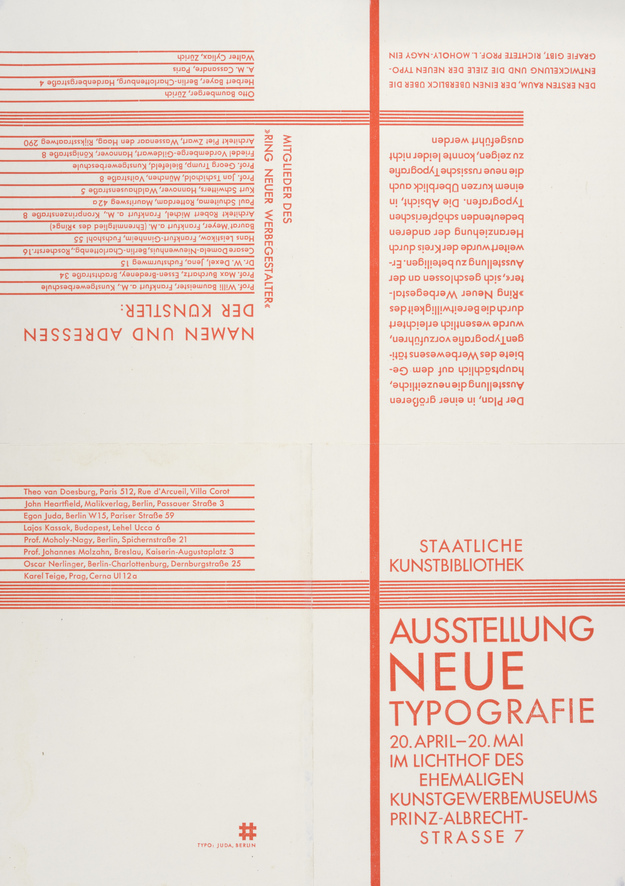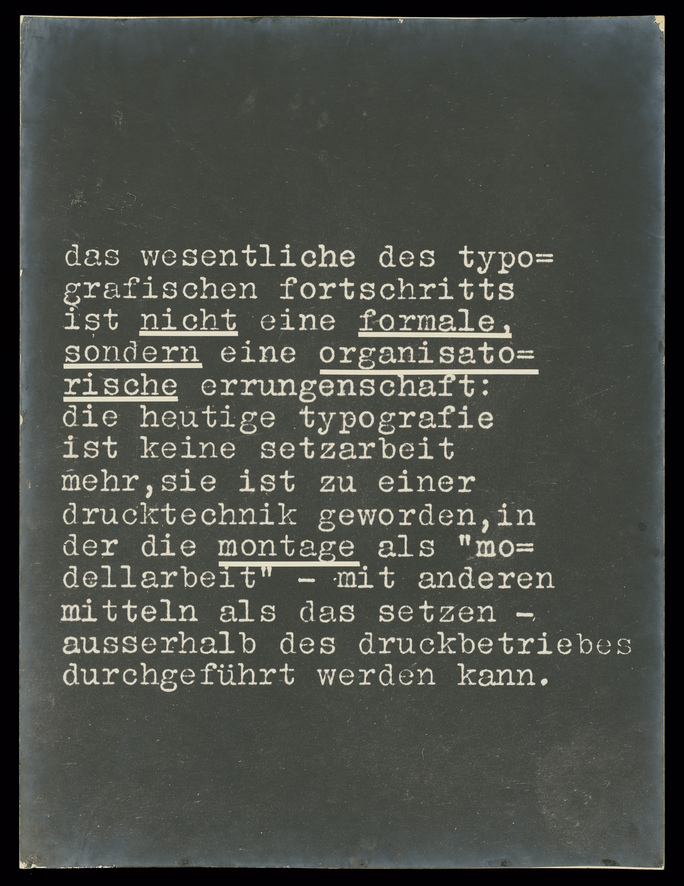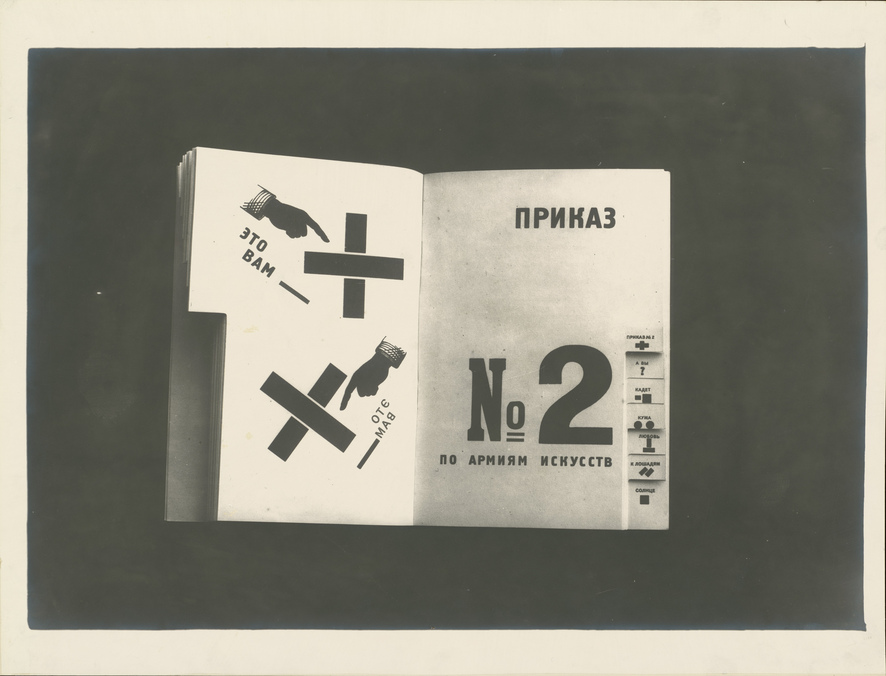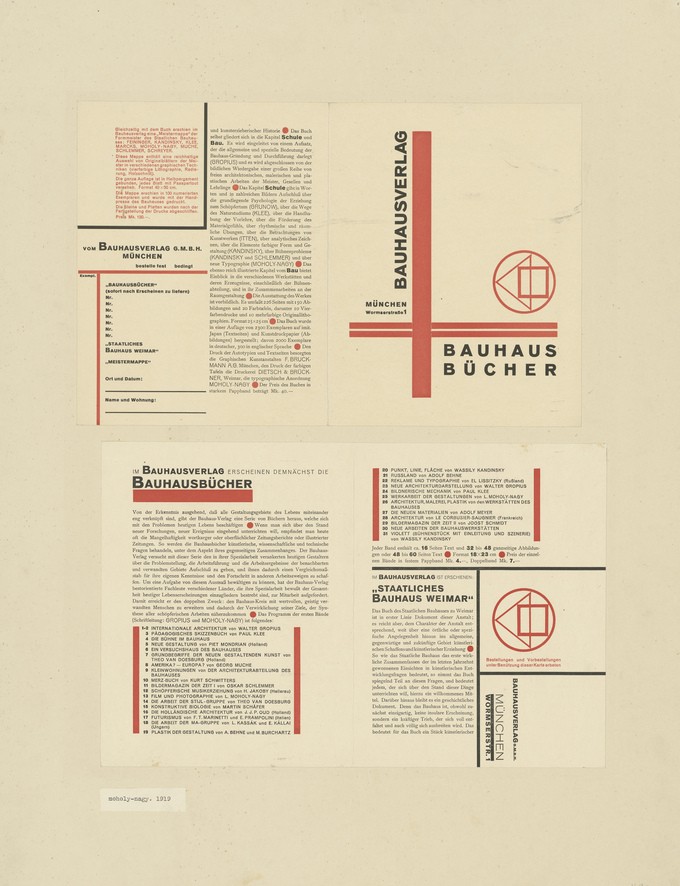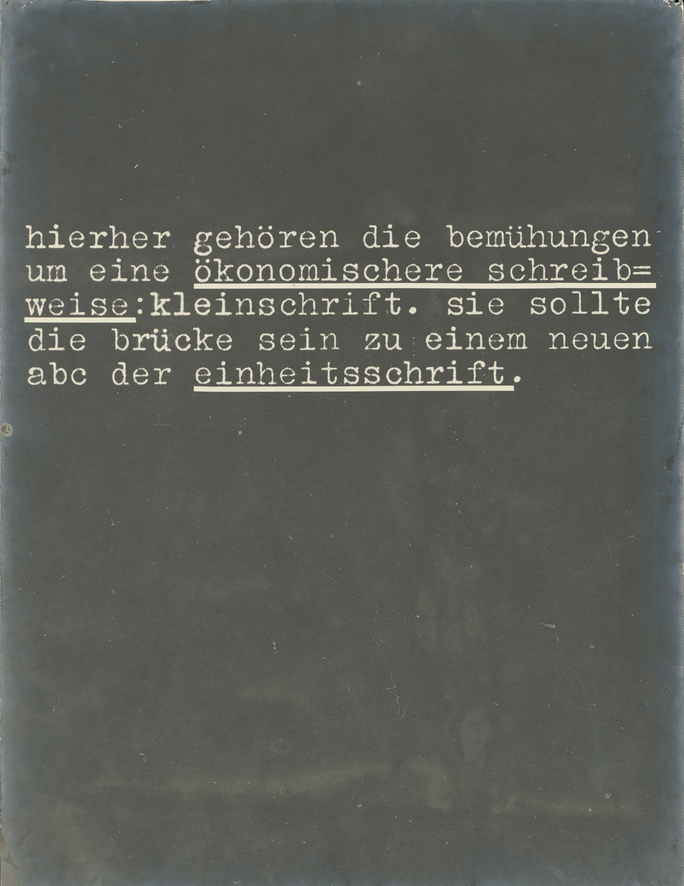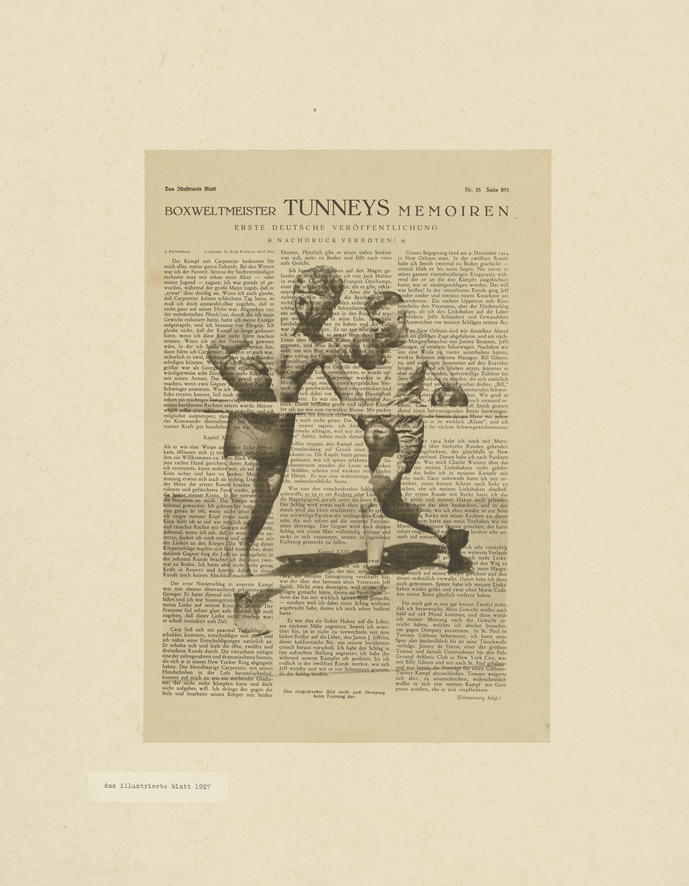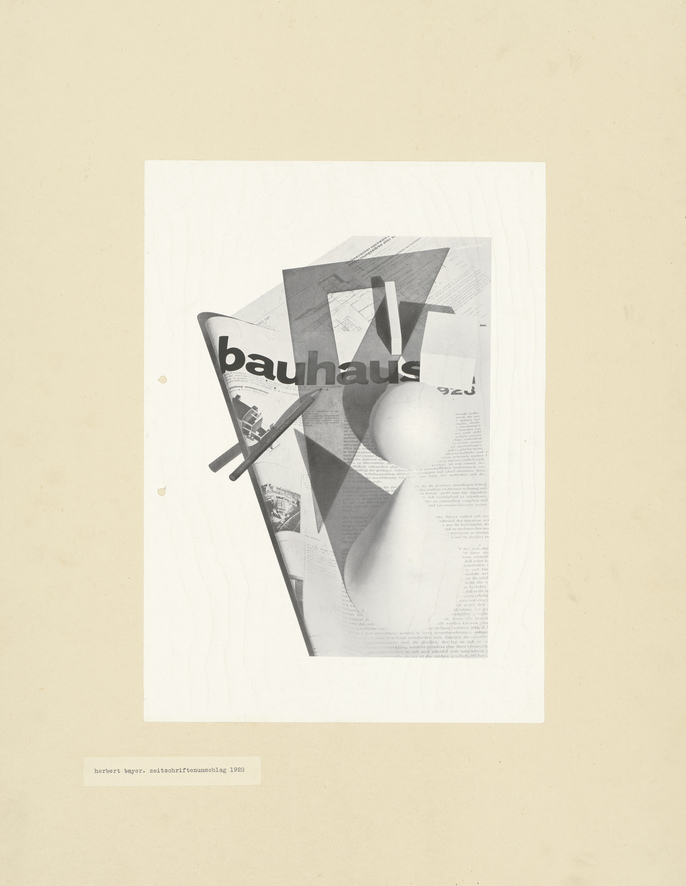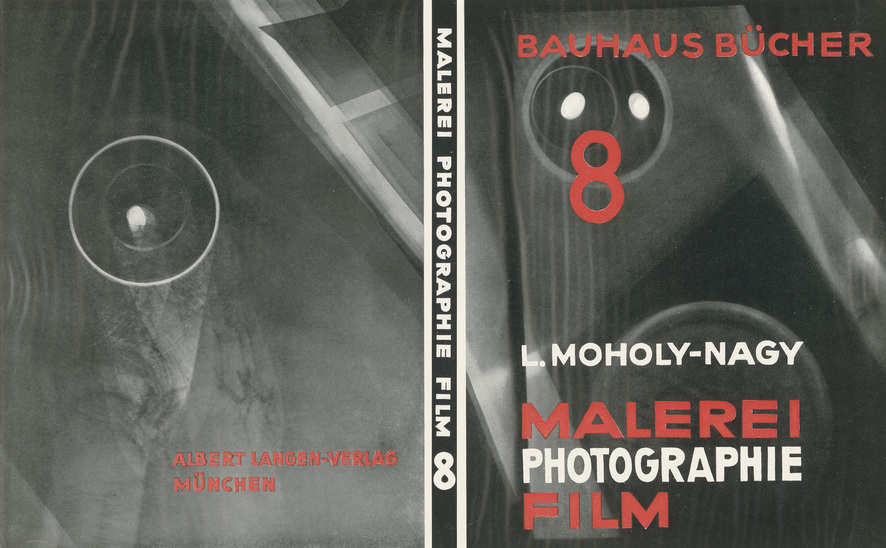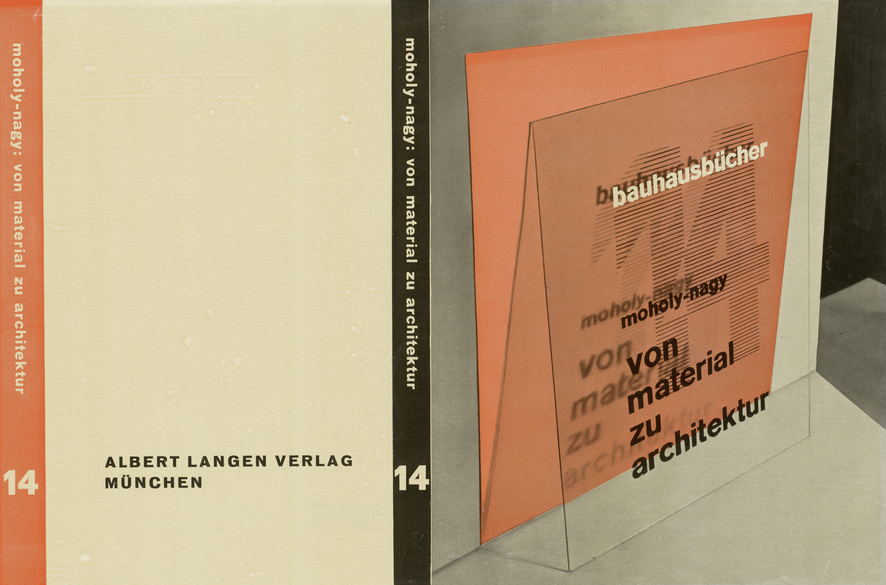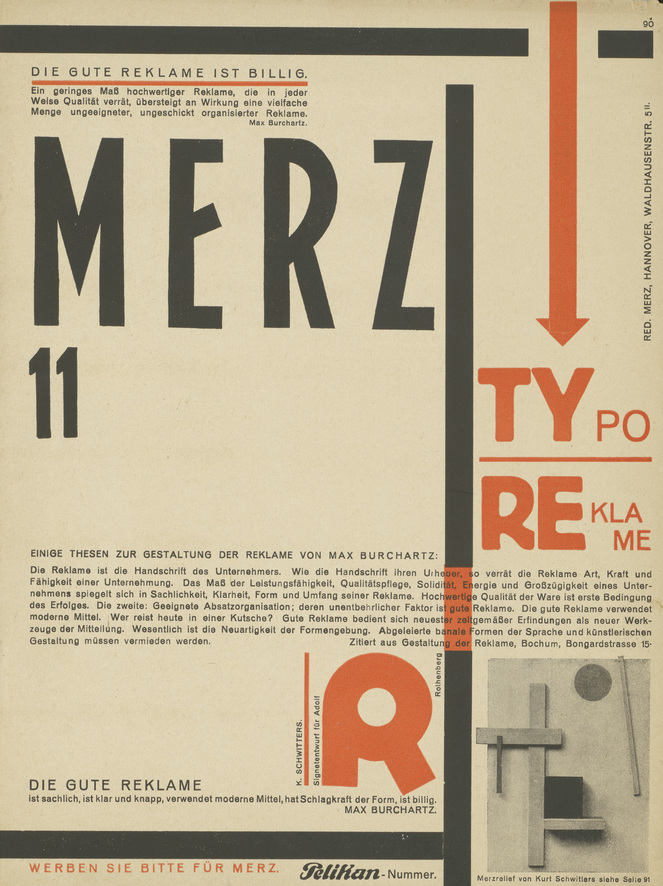
Bauhaus 100: Kunstbibliothek presents László Moholy-Nagy and New Typography
An event not to be missed for the Bauhaus vibe we crave for. To commemorate the “Bauhaus week Berlin 2019,” the Kunstbibliothek presents the historical exhibition room “Where is typography headed?” by Bauhaus artist László Moholy-Nagy.
This pioneering exhibition room, entitled “Wohin geht die typographische Entwicklung?” (Where is typography headed?), was first shown in May 1929 in the Martin-Gropius-Bau as part of the exhibition Neue Typographie (“New Typography”), organized by the Staatliche Kunstbibliothek.
Moholy-Nagy had been invited to design a room presenting the future of typography. He came up with 78 wall charts with photos, texts, and pictures, all of which have been preserved. The exhibition room can, therefore, be shown again, complemented by additional posters, letterheads, and other specimens of Martin Gropius Bau from the Kunstbibliothek collection.
Moreover, well-known posters and advertisements from the Kunstbibliothek collection in the style known as New Typography augment the Moholy-Nagy exhibition.
The selection includes works by Willi Baumeister, A. M. Cassandre, Walter Dexel, Johannes Molzahn, Kurt Schwitters, and Jan Tschichold.
The functional graphic design of New Typography, a style of advertising designed by artists that gained wide acceptance in the 1920s, broke with a long design tradition in the printing trade.
Its aim was to create a contemporary design: first by propagating a standardization of fonts and the industrial DIN norms, and second, by promoting ideals of readability, clarity, and directness in keeping with the principles of Constructivist Art.
The exhibition focuses on this large-scale presentation with which artist Moholy-Nagy summed up years of his own teaching work at the Bauhaus and the ideas and visions of New Typography, ranging from Jan Tschichold and Willi Baumeister to Herbert Bayer.
The exhibition program includes evening discussions evaluating Moholy-Nagy’s ideas from a contemporary standpoint. An important part of the program will be the launch of a new publication on Moholy-Nagy’s historical exhibition, edited in collaboration with Gutenberg Design Lab at Mainz University of Applied Sciences notes Kunstbibliothek.